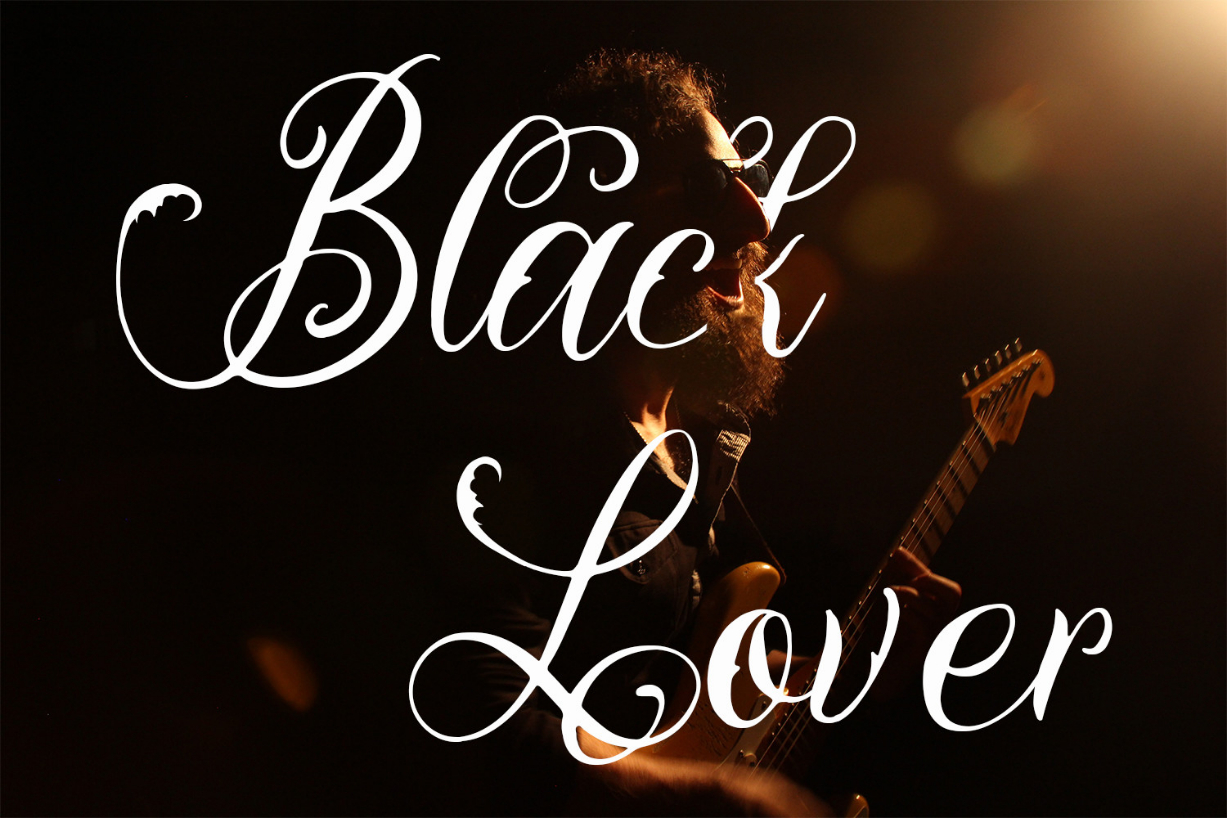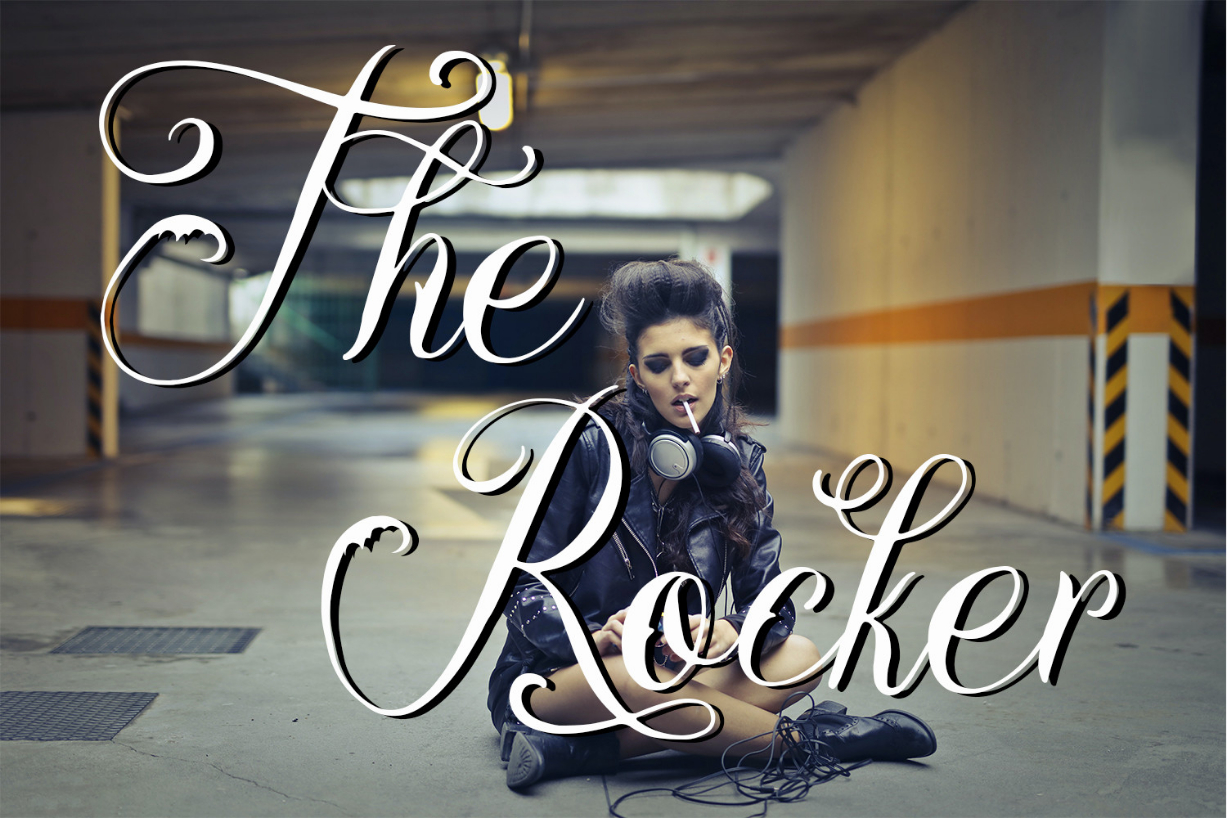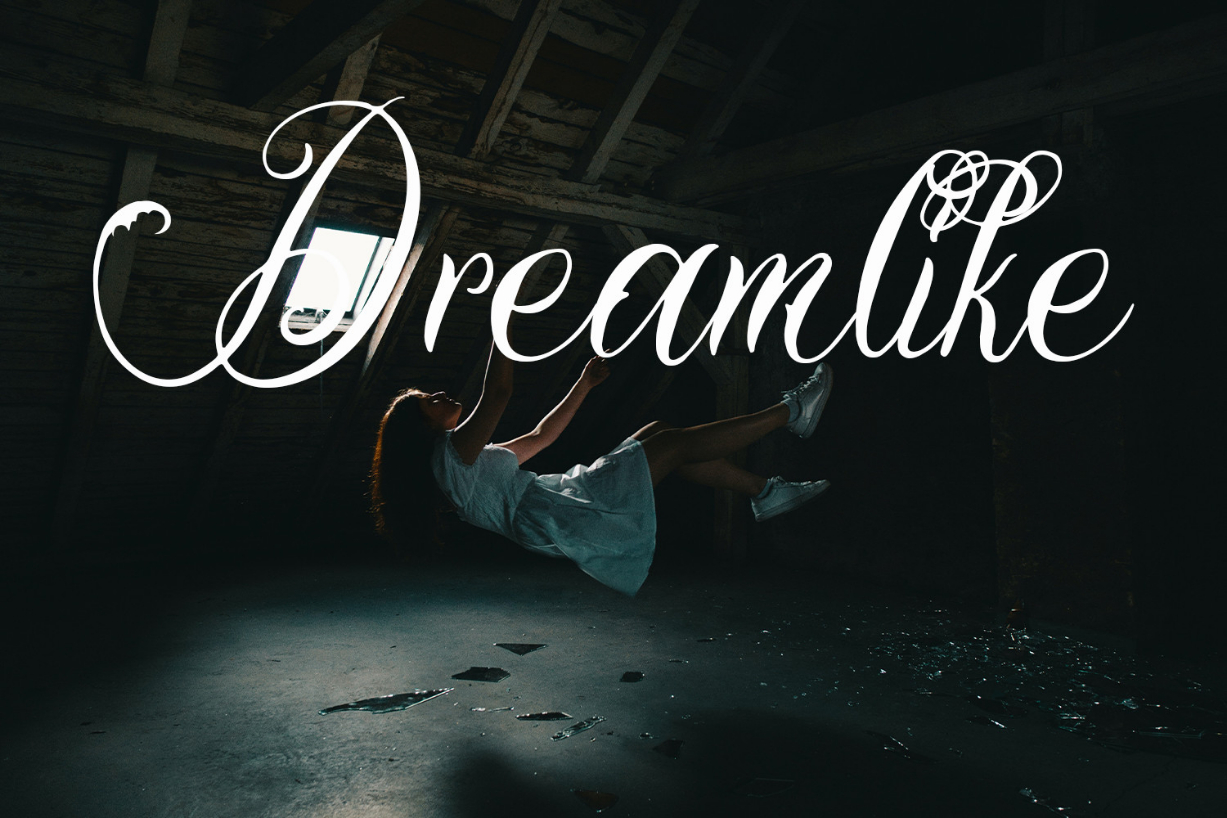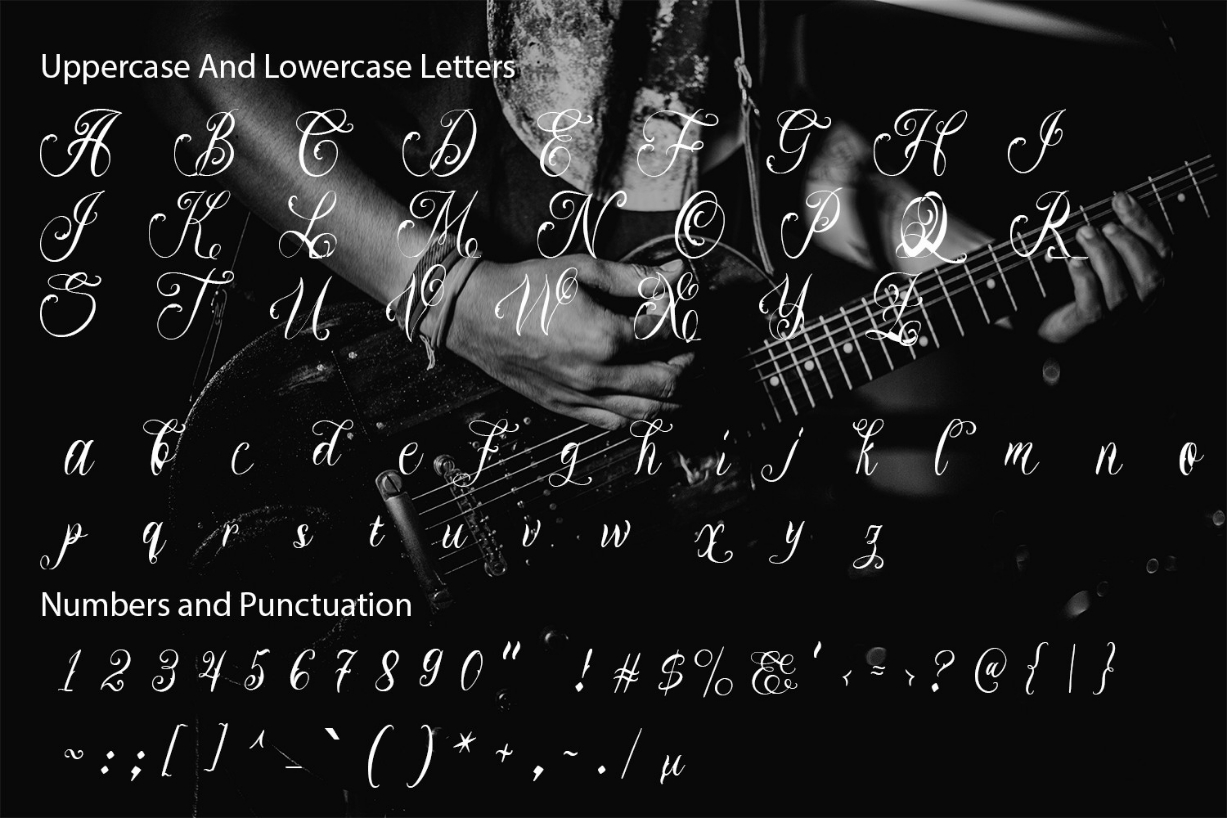
About Blacklover Font
Blacklover is a blackletter font with a new and fresh style.
This font is made and designed in detail with the neatness of kerning and the subtlety of the shape of the font.
This font is specifically for tattoo artists, tattoo studios, tattoo artists, metal t-shirt designs, hardcore, punk, and others.